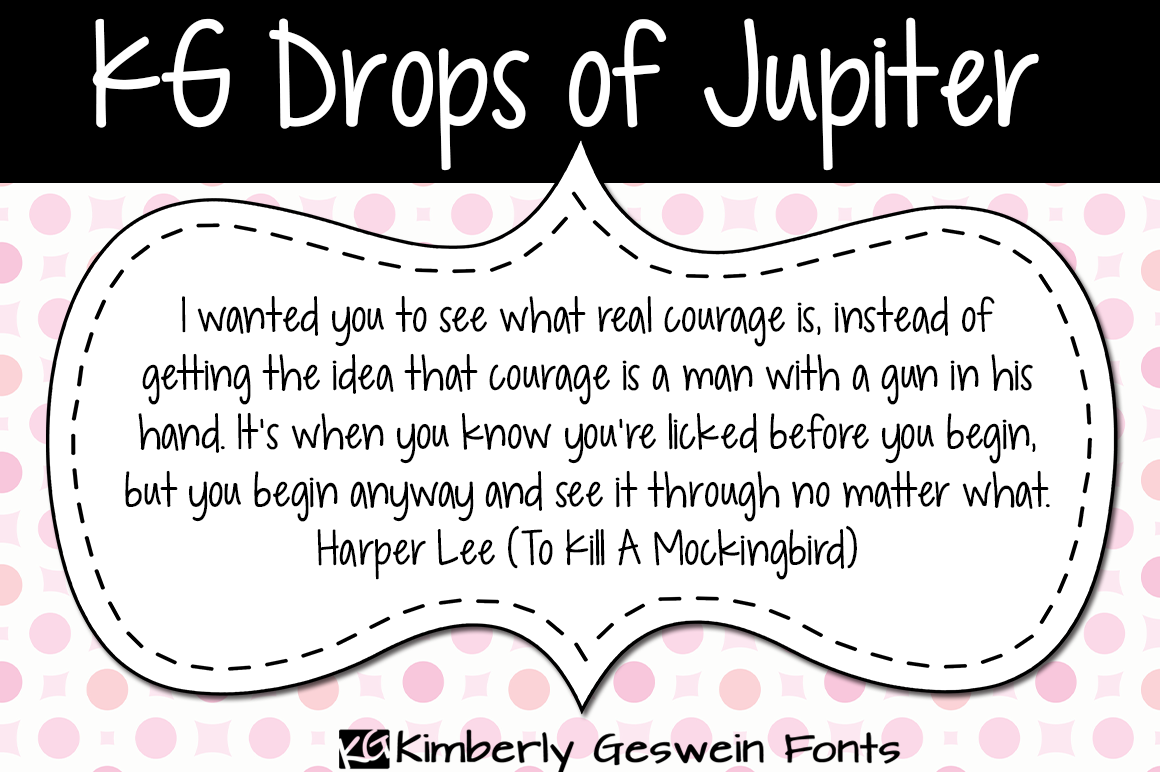
Kg Drops Of Jupiter Font . It’s super cute and easy. download and install the kg drops of jupiter font by kimberly geswein. kg drops of jupiter font. kg drops of jupiter contains 1 styles. free download of kg drops of jupiter font. kg drops of jupiter is a clean and casual handwritten font created by kimberly geswein in 2013. The kg drops of jupiter font has been downloaded 17,123. download kg drops of jupiter font · free for personal use · copyright (c) 2013 by kimberly geswein. Kg drops of jupiter à € by kimberly geswein. Click now to create a custom image with your own words that you can download. By kimberly geswein fonts in fonts.
Kg Drops Of Jupiter Font kg drops of jupiter is a clean and casual handwritten font created by kimberly geswein in 2013. download kg drops of jupiter font · free for personal use · copyright (c) 2013 by kimberly geswein. The kg drops of jupiter font has been downloaded 17,123. kg drops of jupiter is a clean and casual handwritten font created by kimberly geswein in 2013. download and install the kg drops of jupiter font by kimberly geswein. kg drops of jupiter contains 1 styles. free download of kg drops of jupiter font. By kimberly geswein fonts in fonts. Kg drops of jupiter à € by kimberly geswein. It’s super cute and easy. Click now to create a custom image with your own words that you can download.